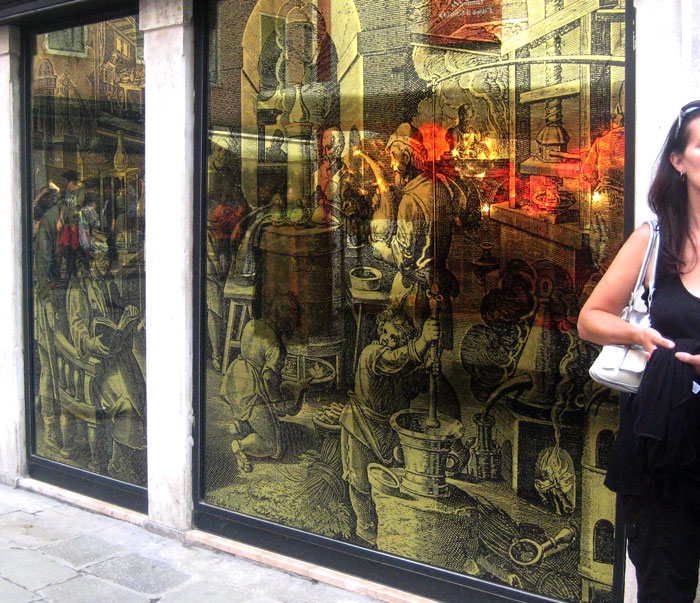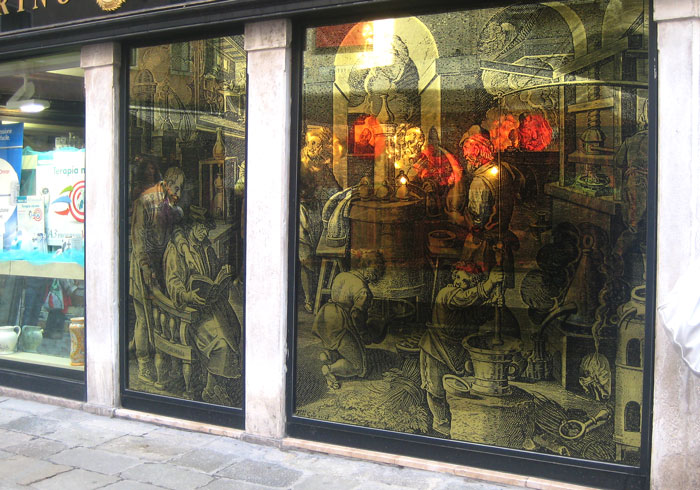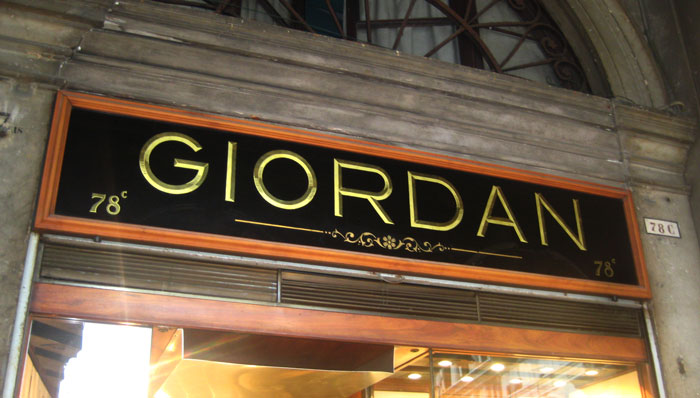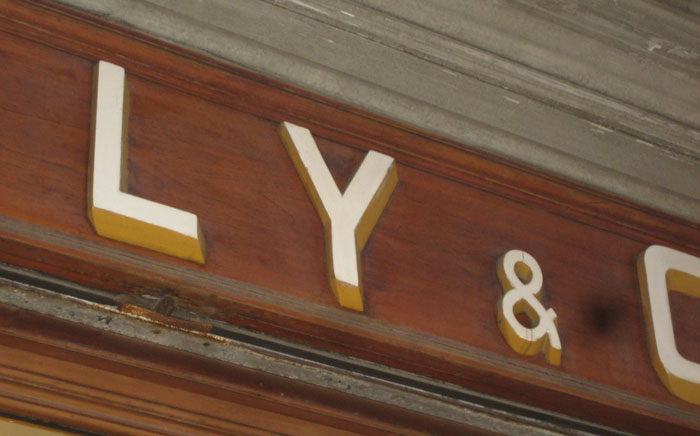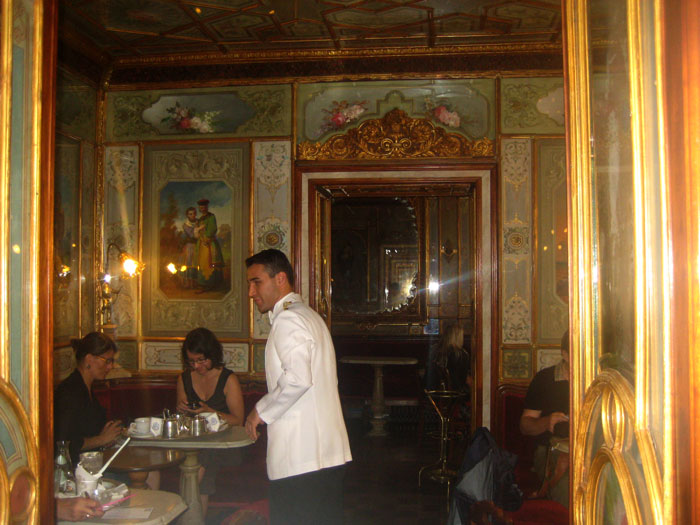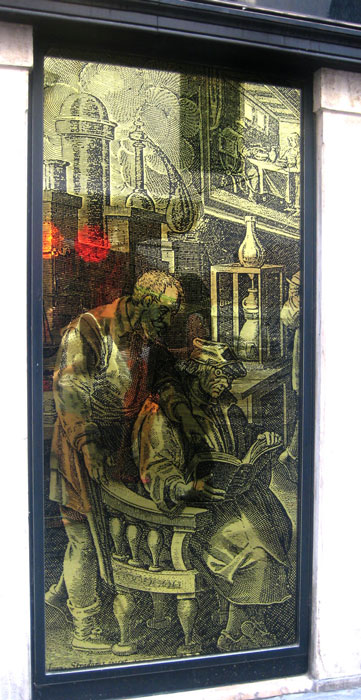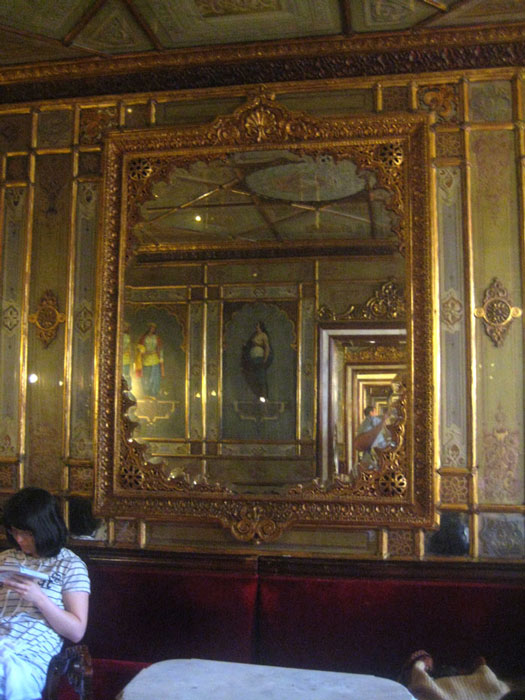
I Just come back from an 8 day break in (Lake Garda) Italy with my family.
We visited Venice for 1 day and I was hoping to get to an island just off Venice called Murano which is famous for all its glass work but we never got the time.
I found some interesting shop fronts and interiors while in Venice,this is just a few shots of a small corner of this wonderful city,hope to be going back again soon for a 4 day trip so will get a better look around including Murano with its glass. some more shots to share here on the forum enjoy..
excellent work...
Those first couple of photos appear to be gold engraving. Is that what we're looking at? Is it fully gilded with the design engraved and backed up with black?
If so, it's an extraordinary piece of work. I can't imagine how long it would have taken to do such a large piece in such a fine and time-consuming technique.
Also a fabulous interior in that cafe/restaurant. Wow!
What you are seeing is a print of black enamel screened on the glass and then water gilded full sheets of 23crt gold leaf using gelatine over the entire area.
It does appear in the photo to have an engraved look, I can see that also.
Nice work ... the gild was very cloudy all over but still looked good and actually made it look kind of old. lot of work for someone.. My wife is standing next to it in the shot to give some idea of glass size. I did end up taking picks of the family also seen as it was a holiday....
Black screened and guilded, you normally see that on much smaller pieces I believe, nice photo and nice find Dave. Thanks for sharing.
Yes I would say the same Anthony. I noticed the join in areas where they matched the artwork on the big window (printed in two ) plus the screen mesh mark was showing also but still a very clean job.
Anyway, It's my wedding anniversary in December so I tried to talk the wife into going to Venice for four days. It's a romantic place to go and I could take more photos like daves of Giordans.
Thanks for posting the great photos! The Cafe is Called " Cafe Florine". I conceder it to be on my list of must see places. I have allot more reference photos of the interior. I will post them when I get a chance. I would love to know the history about who and when It was painted.
Years ago when I work with Cheese Cake Factory they had a new concept store they were working on. It was all based on back painted glass art from there. The photo is a copy from one of the pieces in the cafe.